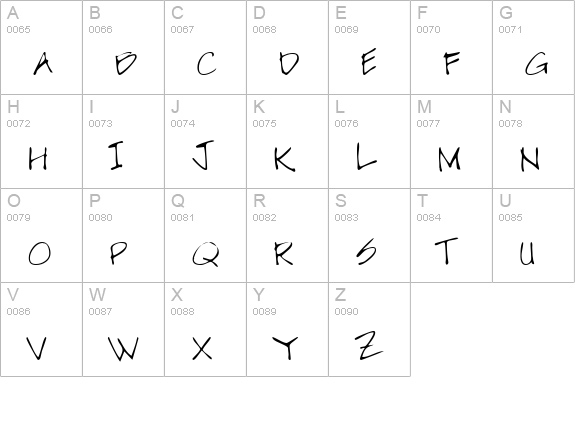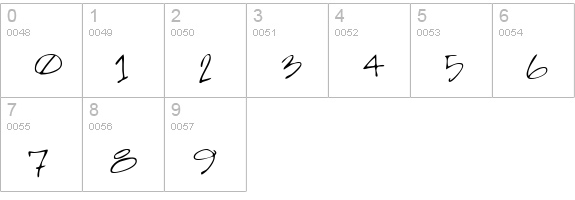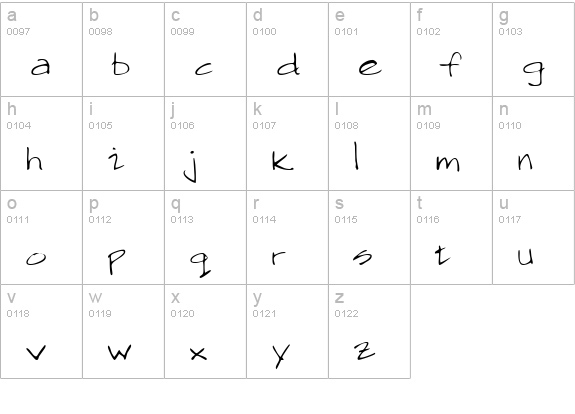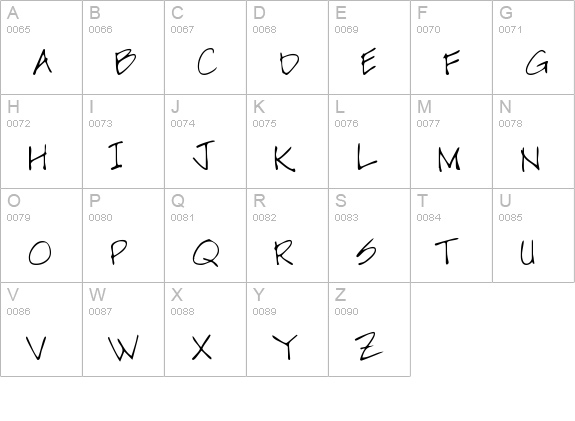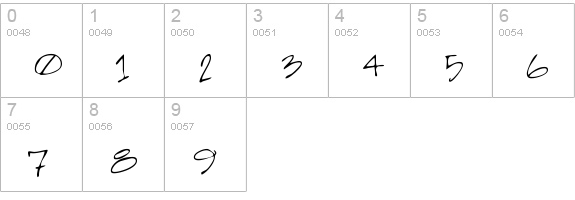
SawyersHand Font Details
SawyersHand is a unique and captivating font that effortlessly combines elegance with a touch of quirkiness. This hand-drawn typeface is perfect for adding a personal and artistic touch to any design project. Its beautifully irregular letterforms exude a sense of authenticity and craftsmanship, making it an ideal choice for branding, packaging, logo design, and more. With its flowing curves and organic lines, SawyersHand brings a sense of warmth and charm to any text. Whether used for headlines, body text, or even in quotes and captions, this font stands out from the crowd and adds a delightful element of whimsy. What's even better is that SawyersHand is freely available to download at FontsMarket.com. This means that you can easily access this stunning font and start incorporating it into your designs without any hassle. Whether you're a professional designer or a creative enthusiast, the accessibility of SawyersHand allows you to explore your artistic side and experiment with typography in new and exciting ways. So, why settle for ordinary and generic fonts when you can choose SawyersHand to bring your designs to life? Download this fantastic font today and let your creativity soar. With SawyersHand, the possibilities are endless, and your designs are sure to stand out from the crowd.